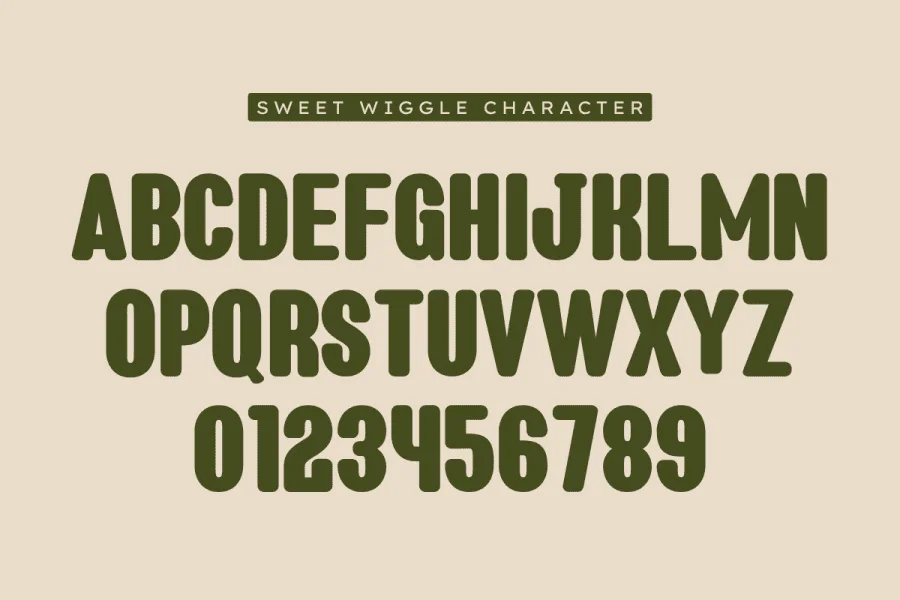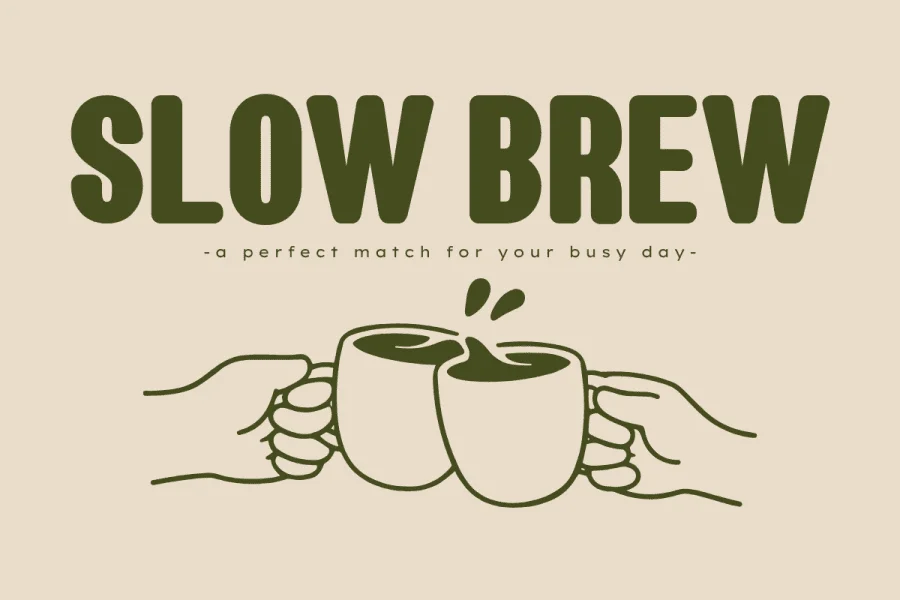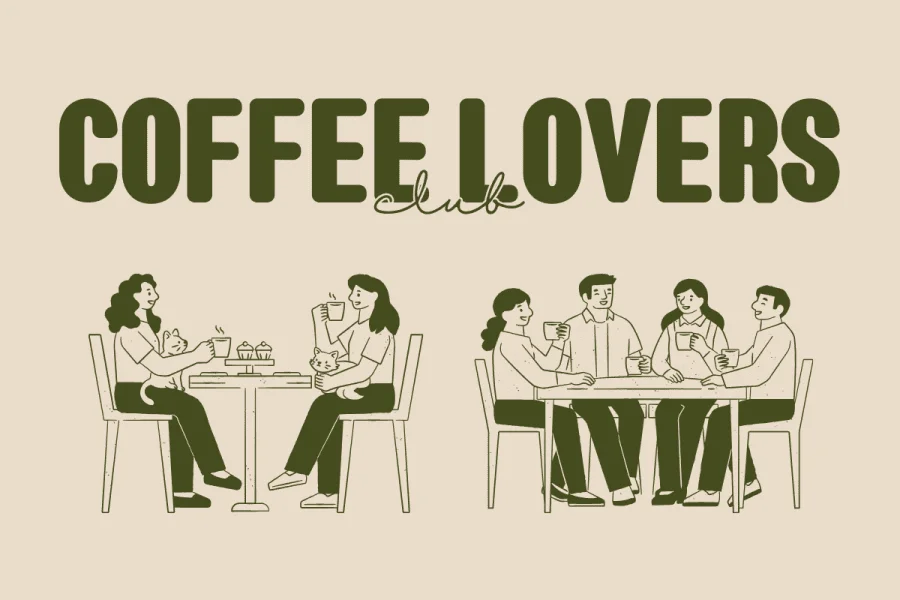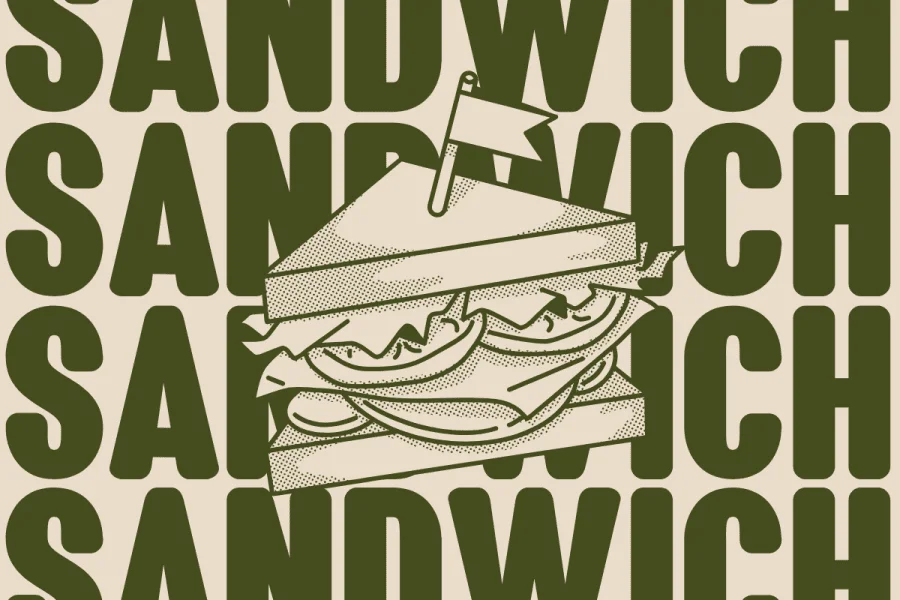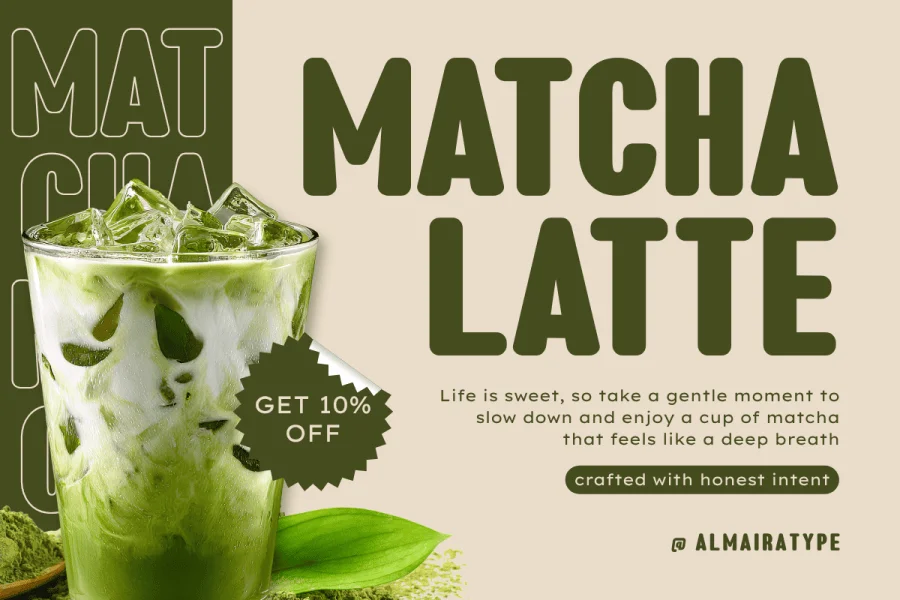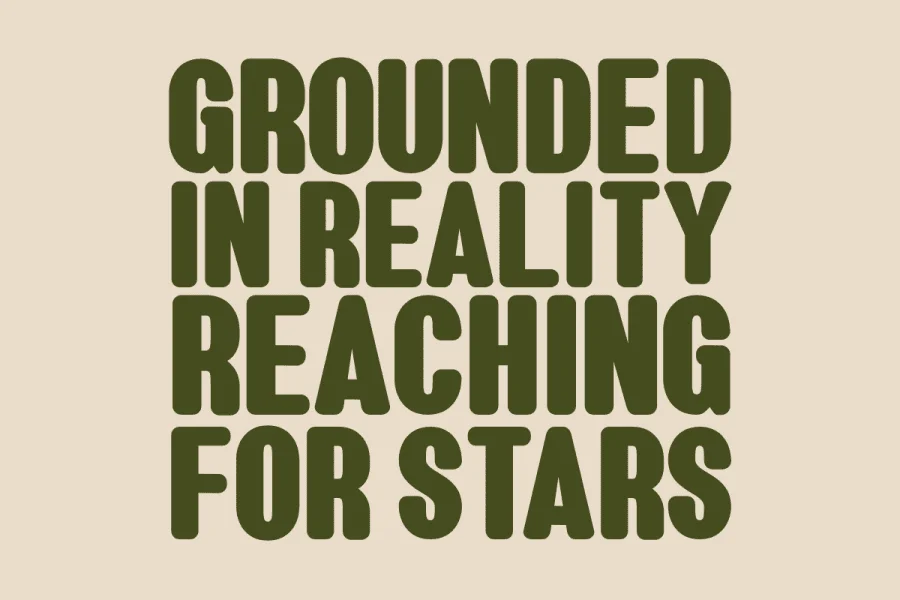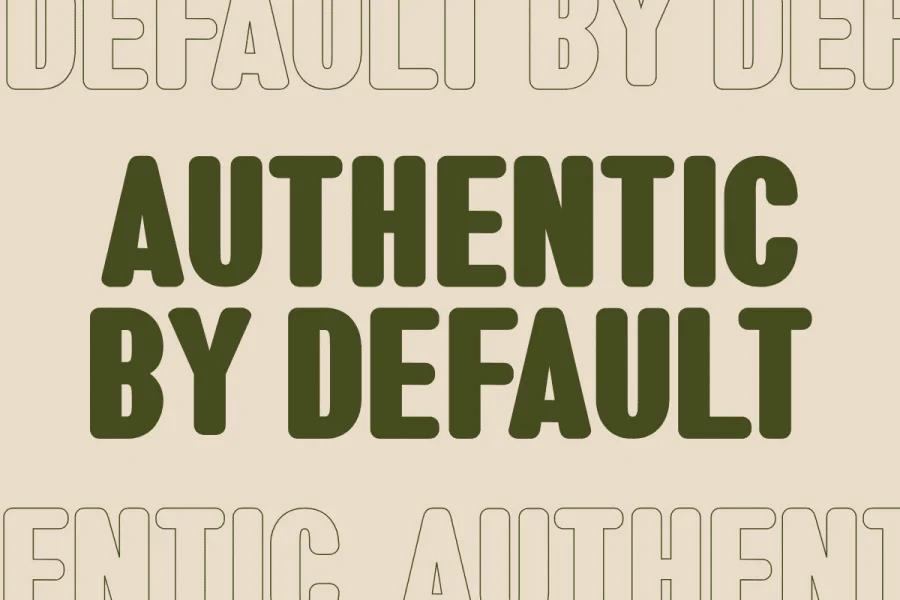
Sweet Wiggle is a retro-inspired, condensed sans-serif typeface that balances structural density with a soft, approachable texture. Built with a heavy, uniform stroke weight and low contrast, its letterforms feature distinctly rounded terminals that soften the rigid, vertical geometry of its condensed proportions. The upright posture and tightly packed spacing create a solid, block-like rhythm, while subtle organic curves in the joints and counters infuse the overall design with a warm, hand-drawn friendliness.
This typeface is exceptionally suited for display applications that require both high impact and a welcoming, casual tone. It excels in branding for cafes, coffee lovers clubs, and artisanal food packaging, as well as in bold promotional materials for specialty drinks like matcha lattes. Its thick, friendly presence makes it a natural fit for projects seeking a nostalgic, mid-century aesthetic with a modern, clean execution across menus, signage, and merchandise.